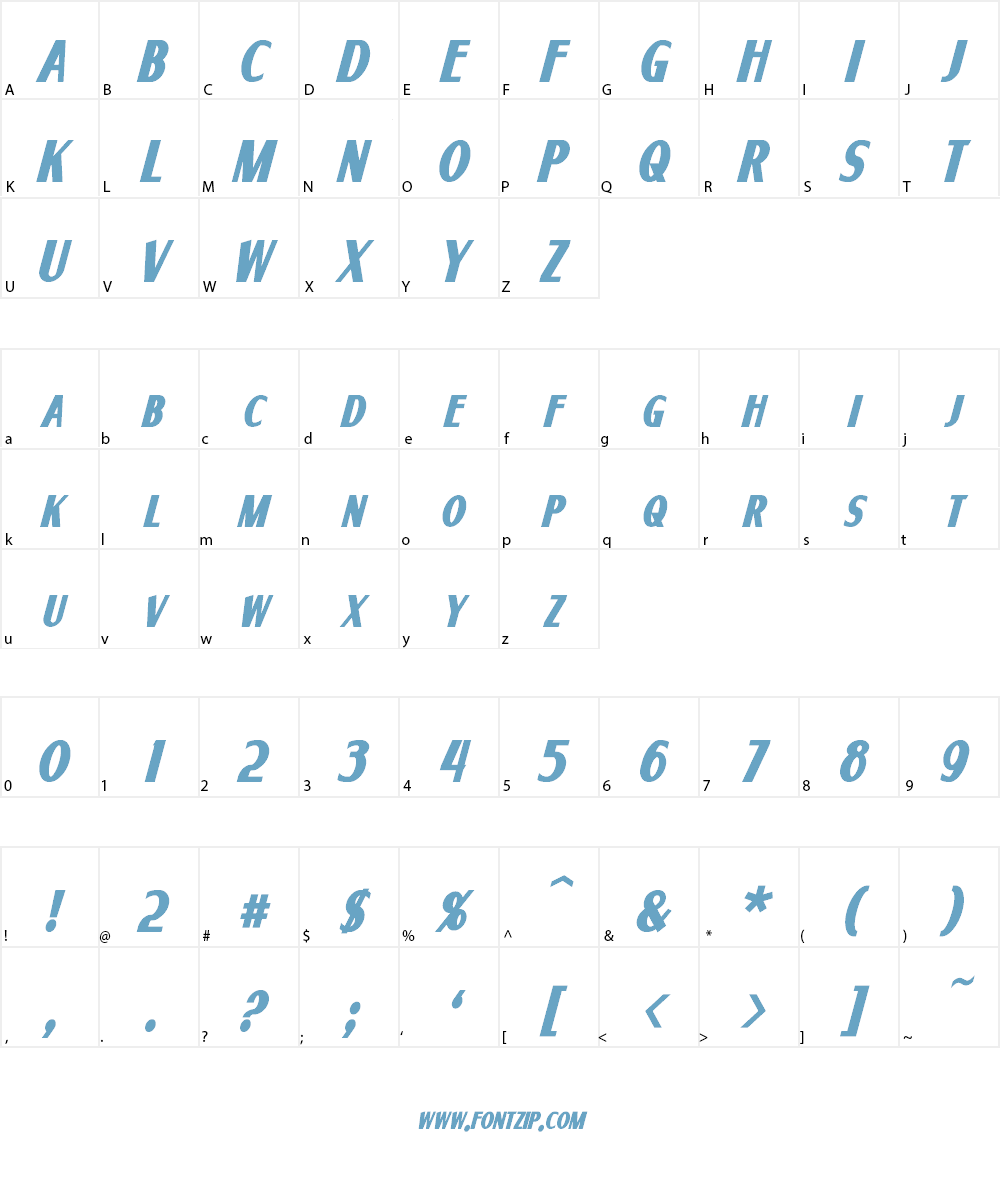
Ponsonby is a simple, middle-caps art-deco font based heavily on the typeface used in TSR’s classic “Indiana Jones Roleplaying Game”. This stylish font includes full alphabet, punctuation, Euro, and extended character set. Includes regular, bold, italic, and bold italic versions.